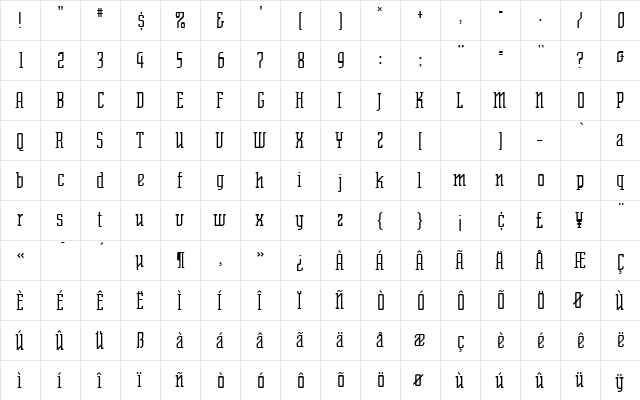
SenatorThin Regular
Design Context for SenatorThin Typeface
SenatorThin offers clean, dependable letterforms without strong stylistic allegiance, making it a practical choice for designers who need flexibility. Its slender proportions lend an understated elegance to any composition.
Pro Tip: Pair SenatorThin with a font of contrasting weight or personality to build a more expressive typographic hierarchy.